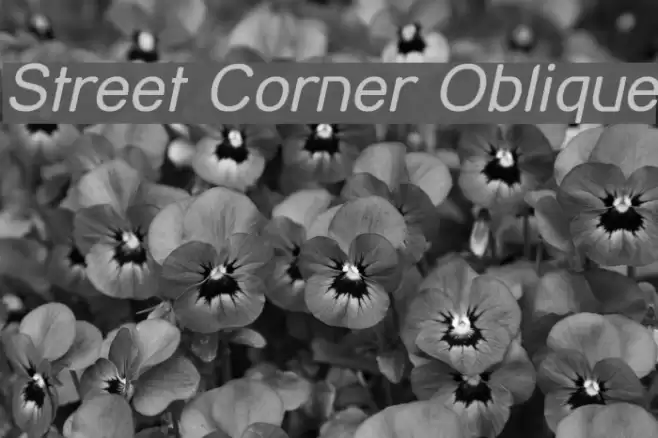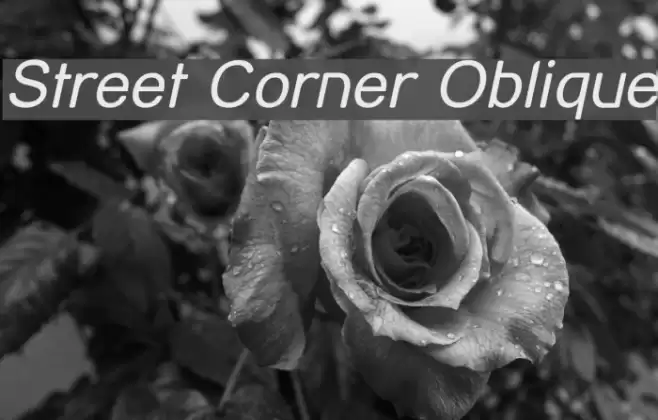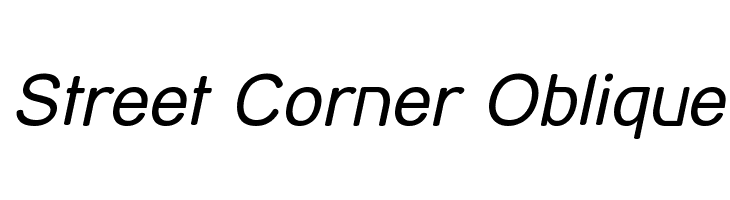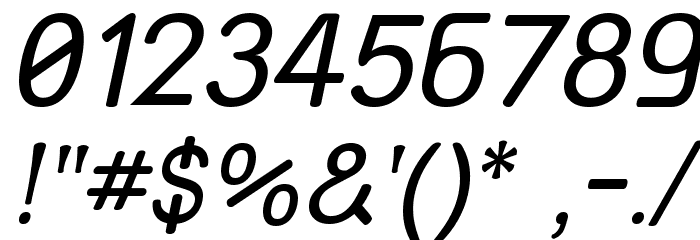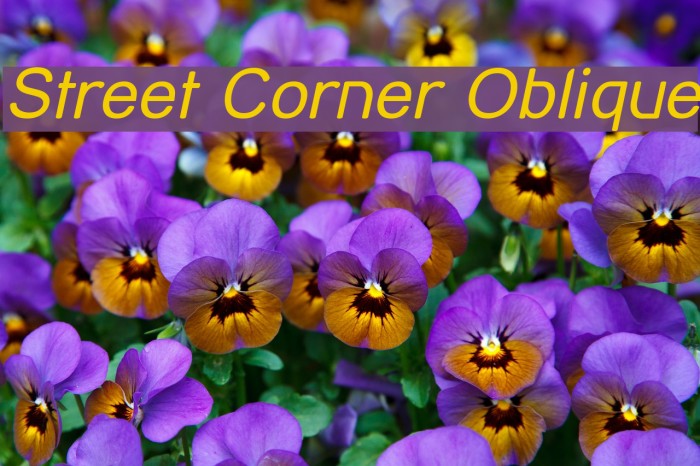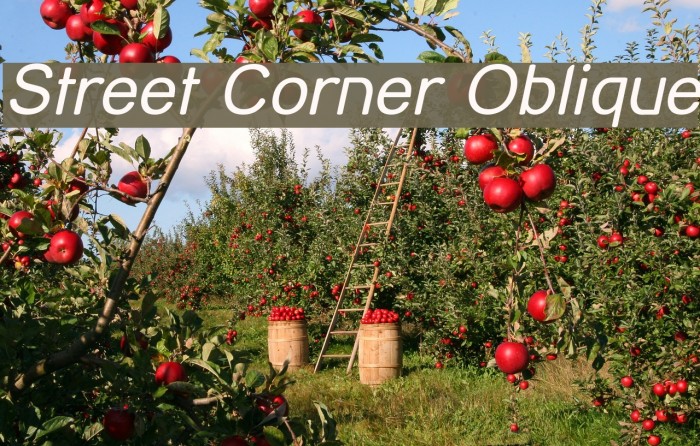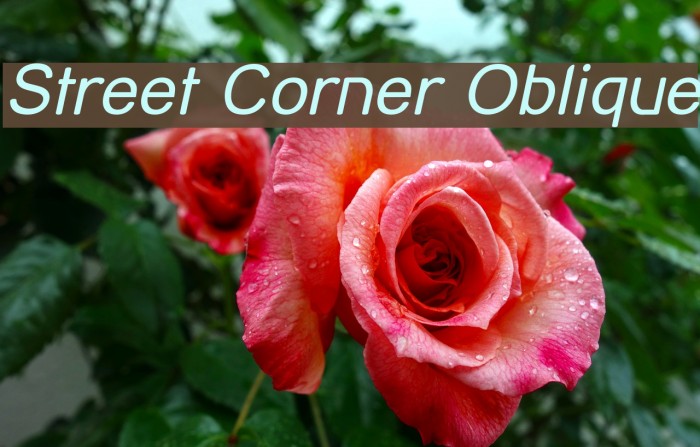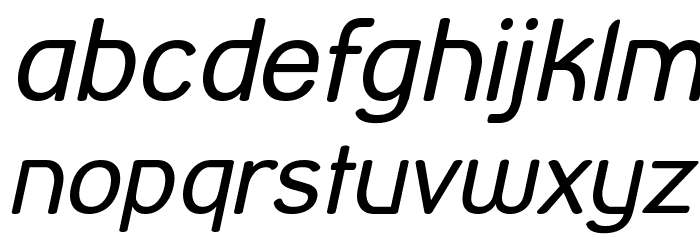
Street Corner Oblique Font
Street Corner Oblique Description
This font features a sleek, modern design with an oblique slant, giving it a dynamic and forward-moving appearance. The characters are clean and sans-serif, providing a contemporary look that is both professional and approachable. The strokes are consistent in weight, offering a uniform appearance across all characters. The font maintains a normal width, ensuring readability while still conveying a sense of motion and energy. Its character spacing is slightly tight, which enhances the compact and efficient feel of the text. The overall style is modern and versatile, suitable for a variety of applications.
A modern, oblique sans-serif font with a sleek and dynamic appearance from Sans Serif fonts.
- Proposed Projects: Ideal for branding, advertising, and digital media projects that require a modern and energetic typeface.
- Character Spacing: Tight
- Use Case: Headlines, Logos, Digital Media